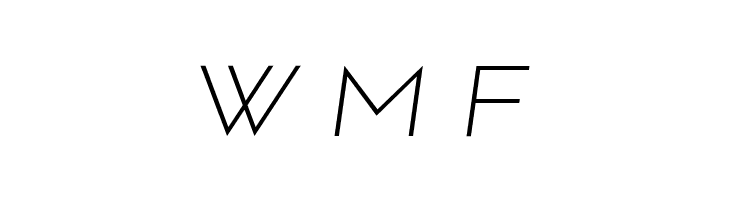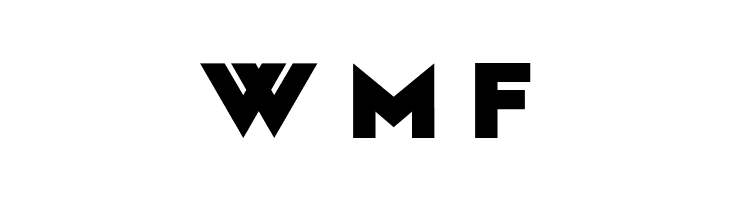
Mermaid Swash Caps Bold Font
A bold, swash-filled serif font with ornate capitals and elegant styling.
NowAlt-Medium Font
A modern, geometric sans-serif font with a clean and versatile style.
Kontanter Bold Font
YG Edged Bold Font
A bold, geometric font with sharp, angular edges and a futuristic style.